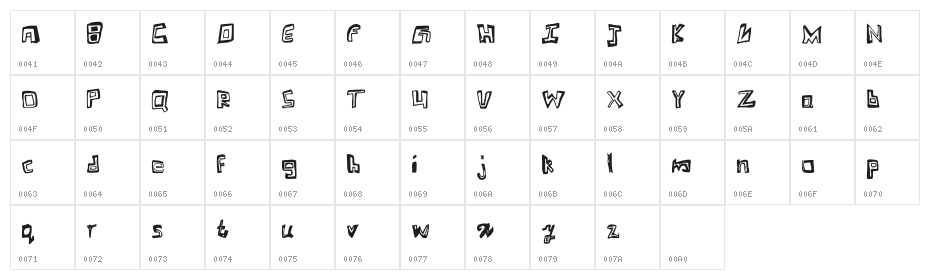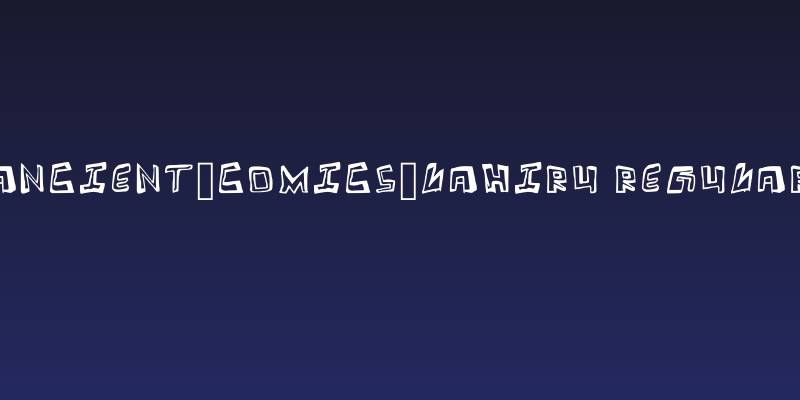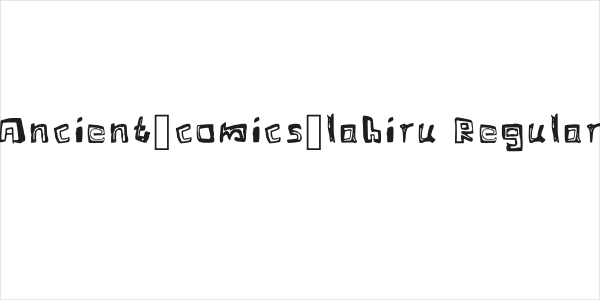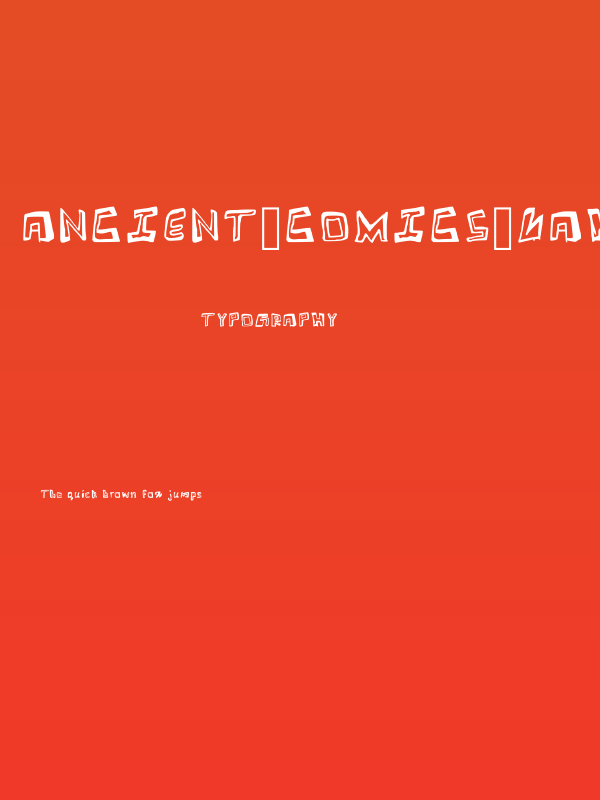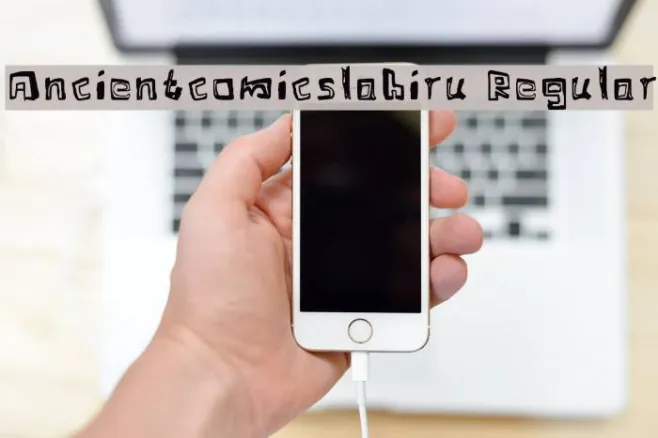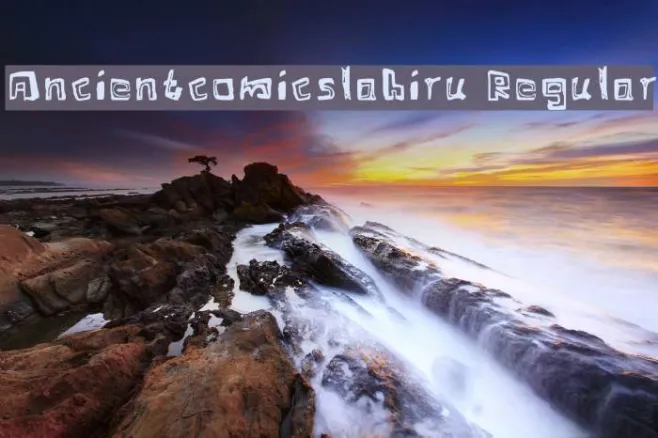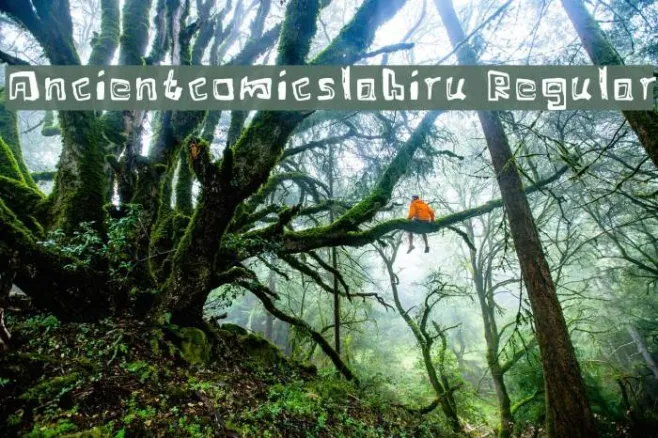
Ancient_comics_lahiru Regular Font
Ancient_comics_lahiru Regular Description
This font features a playful and quirky design, reminiscent of hand-drawn comic book lettering. Each character is uniquely crafted with uneven strokes and a slightly distorted appearance, giving it a dynamic and energetic feel. The uppercase and lowercase letters maintain a consistent style, with exaggerated curves and angles that add to its whimsical nature. The numbers and special characters follow the same design principles, ensuring a cohesive look across all elements. This font is perfect for projects that require a fun and informal touch, such as children's books, comic strips, or playful branding.
| Overall Style | Playful, Quirky, Comic |
| Proposed Projects | Ideal for comic books, children's literature, playful branding, and creative posters. |